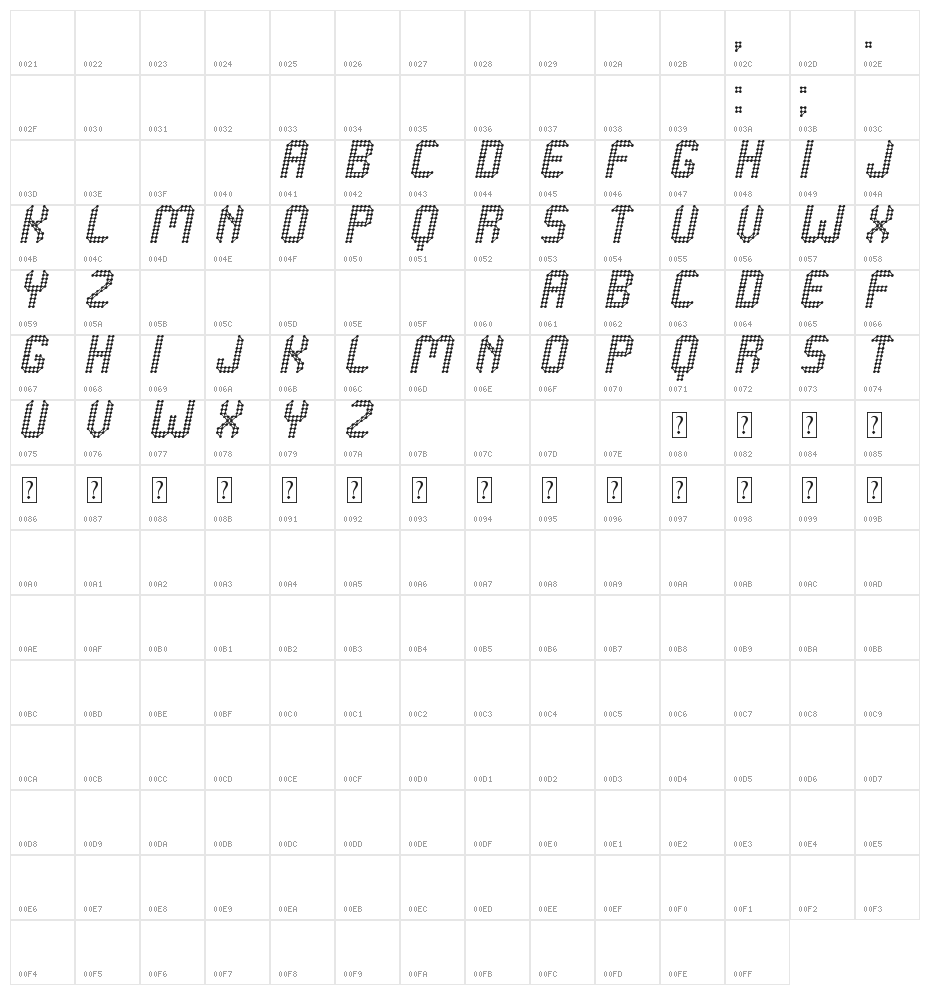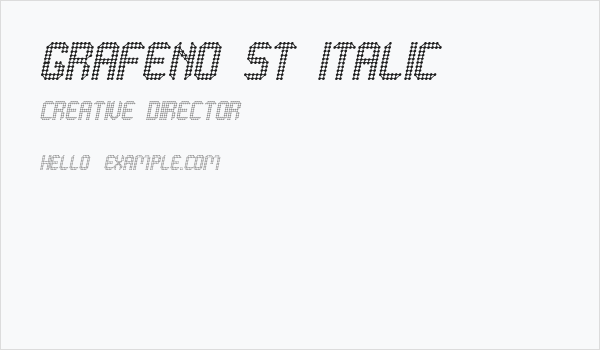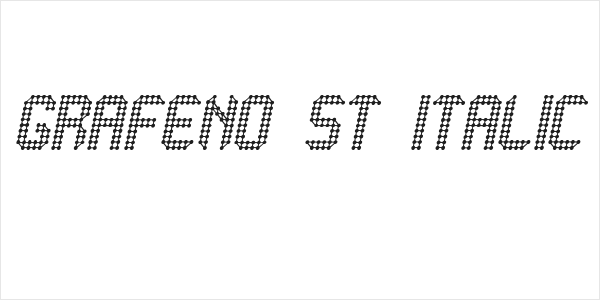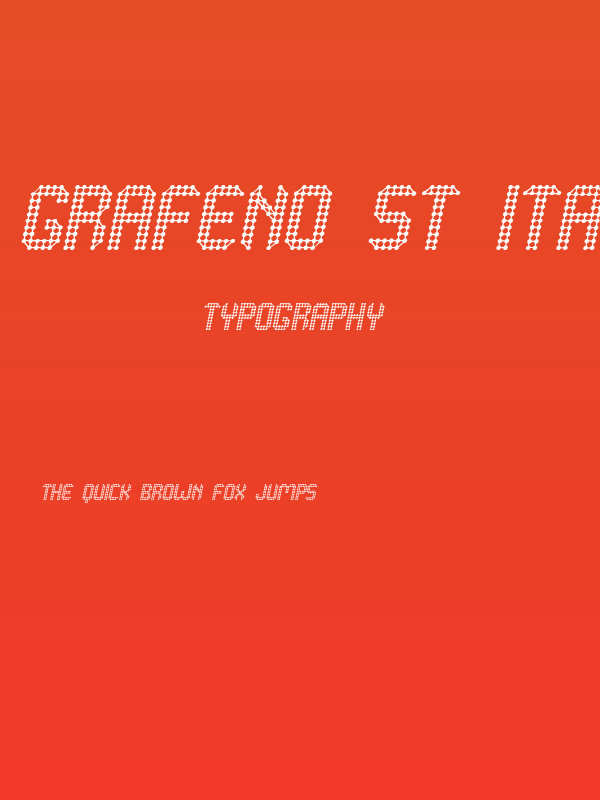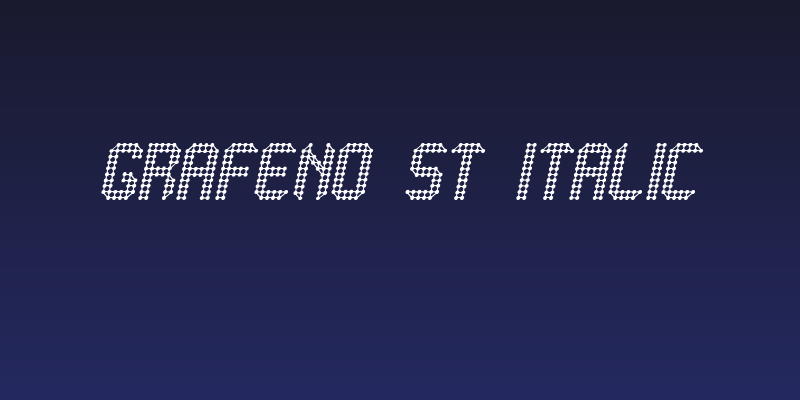
Grafeno St Italic Font
Grafeno St Italic Description
This font features a unique and intricate design that mimics the structure of graphene, with each character composed of a series of interconnected hexagonal shapes. The overall appearance is modern and geometric, with a distinct italic slant that adds a dynamic feel. The uppercase and lowercase letters maintain a consistent style, creating a cohesive look across the alphabet. The numbers and special characters are also designed with the same hexagonal pattern, ensuring uniformity. This font is visually striking and would stand out in any design project.
Proposed ProjectsIdeal for tech-themed designs, futuristic branding, or any project requiring a modern and unique typeface.